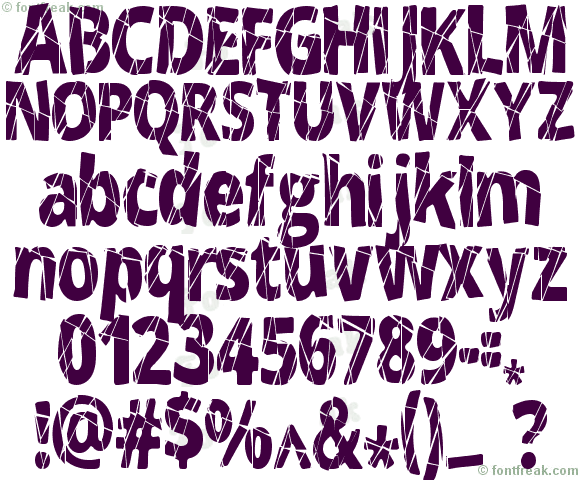
CrackedNarrow
CrackedNarrowItalic
Cracked
The Cracked font by Xerographer Fonts is a distinctive display typeface that captures attention with its unique, fragmented design. This font is characterized by its bold stroke weight and irregular, jagged edges that create a sense of texture and depth. The letterforms exhibit a playful yet edgy aesthetic, making it a standout choice for various creative projects. The spacing is moderate, allowing for legibility while still maintaining its artistic flair.
Best suited for projects that require a strong visual impact, the Cracked font shines in contexts such as movie posters, where it can evoke a sense of drama and intrigue. It is also an excellent choice for album covers, particularly in genres like rock or punk, where an unconventional style resonates with the audience. Additionally, this font can be effectively utilized in restaurant menus, giving a contemporary and artistic vibe that captures diners' attention. Graphic designers will find this font particularly appealing for branding projects, as its unique style can help businesses stand out in a crowded market.
What makes the Cracked font truly remarkable is its ability to blend artistry with functionality. It breaks away from traditional typeface norms, offering a fresh perspective that can elevate any design project. For those seeking a Cracked font free download, this typeface promises to bring an innovative edge to your typography.